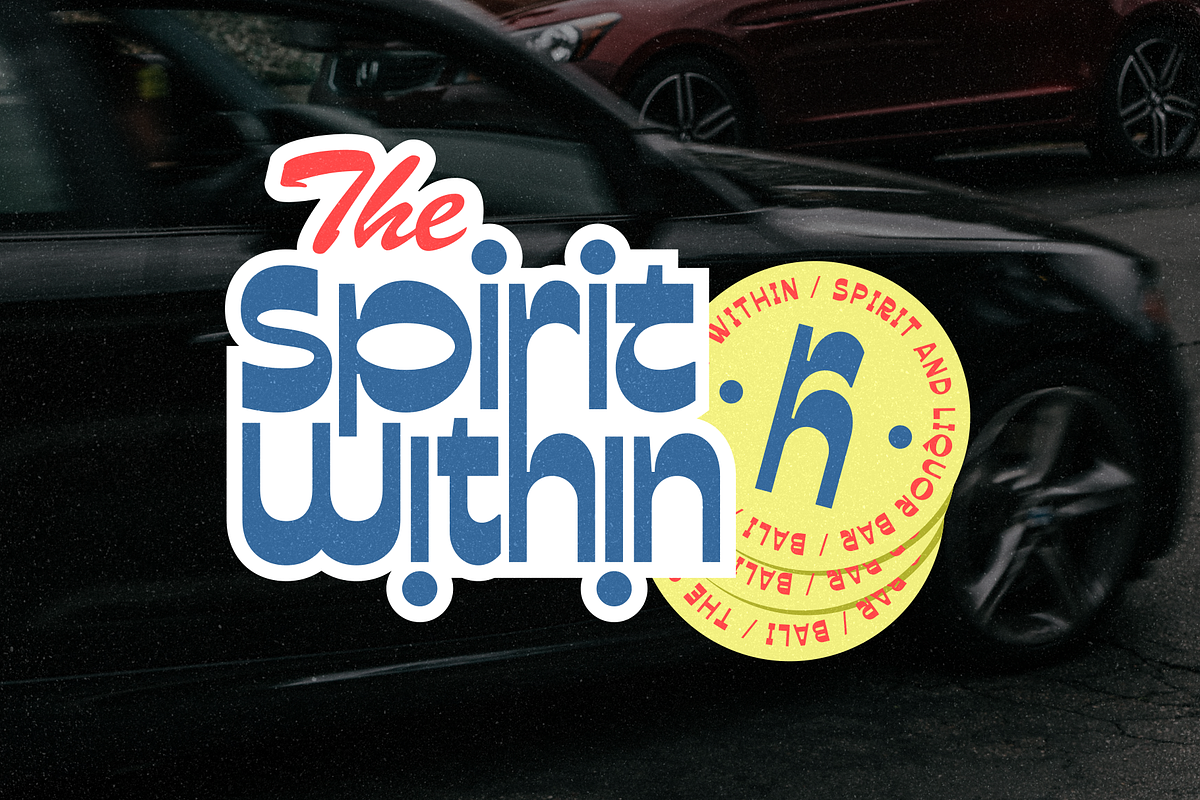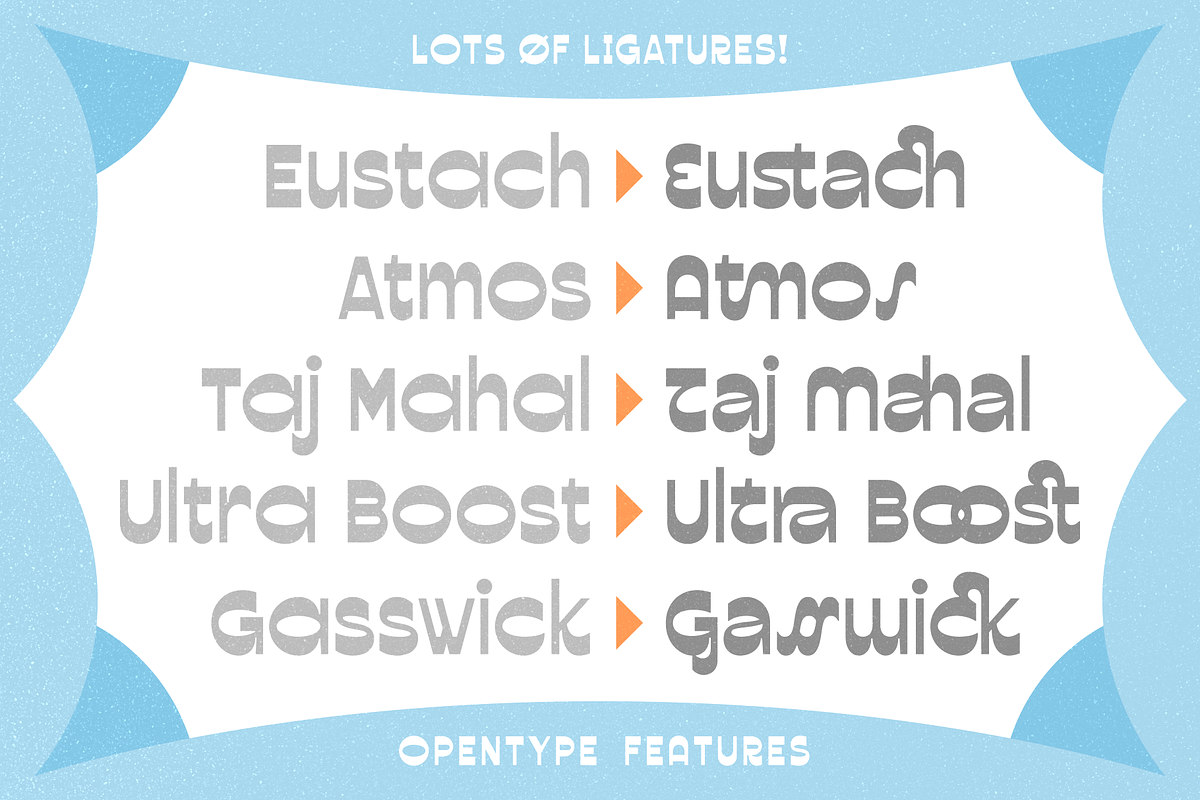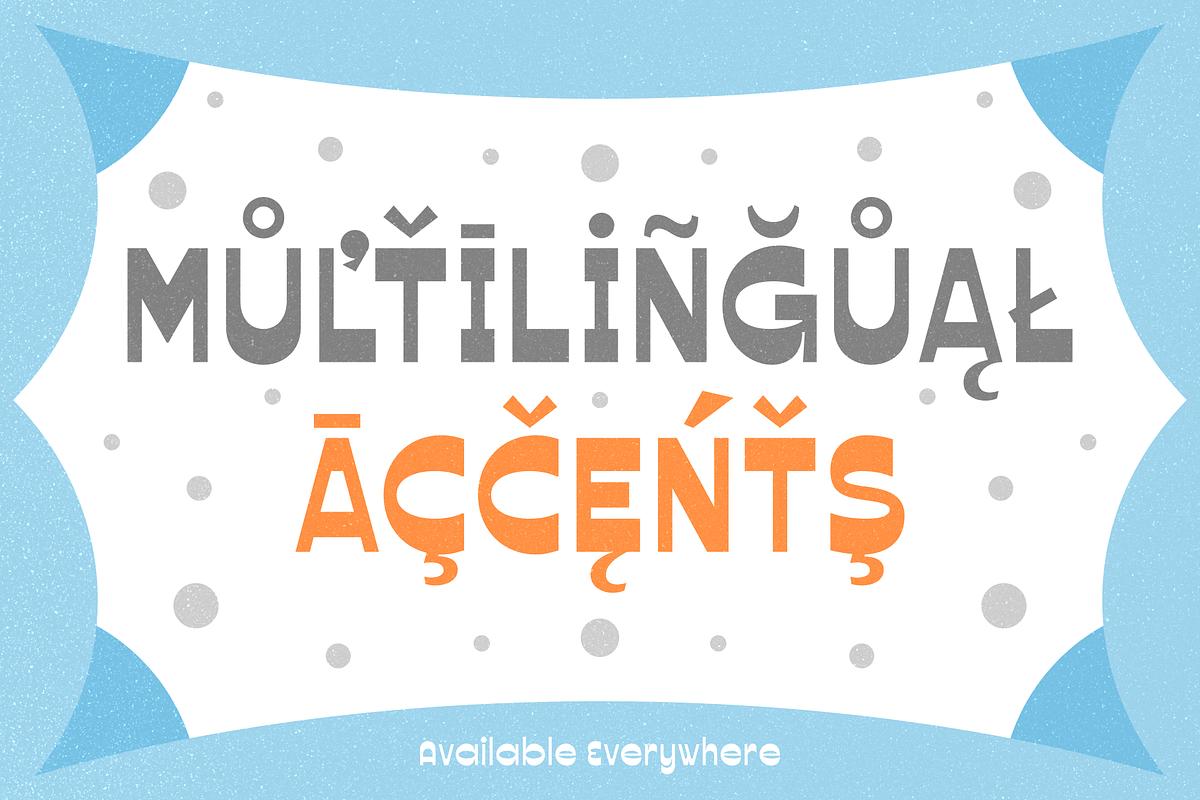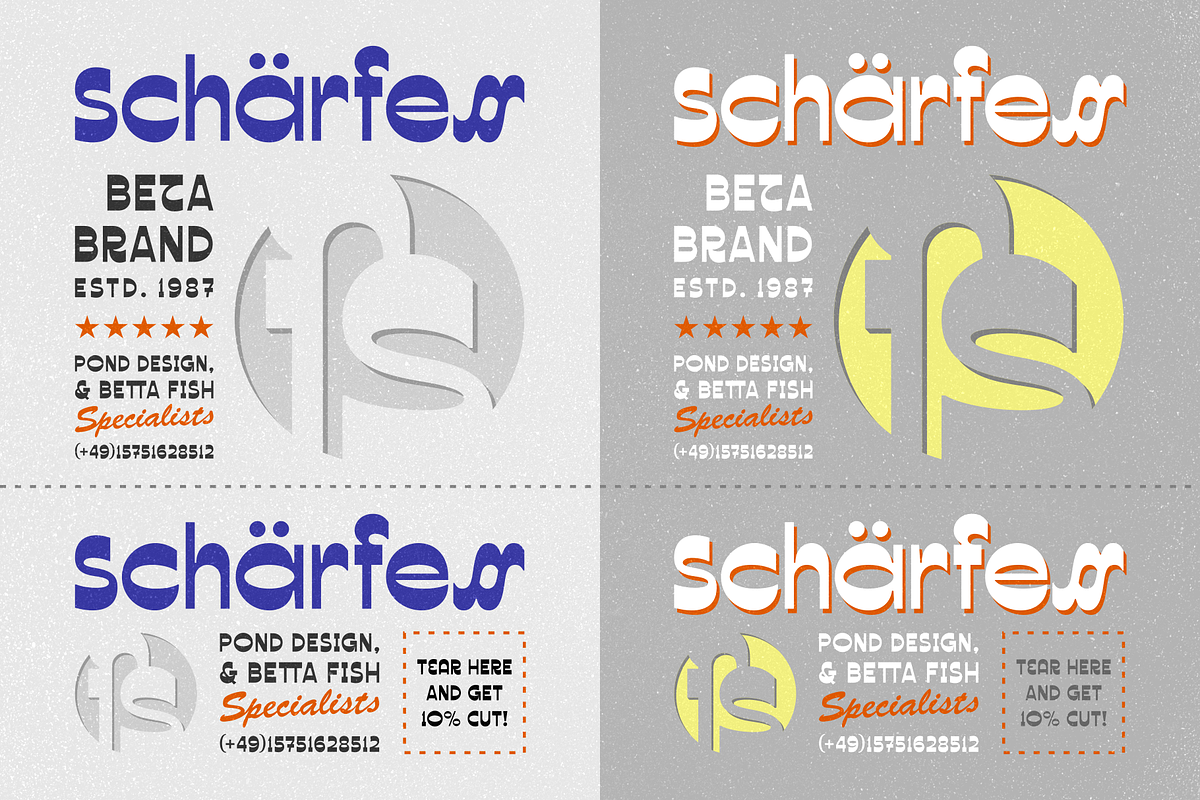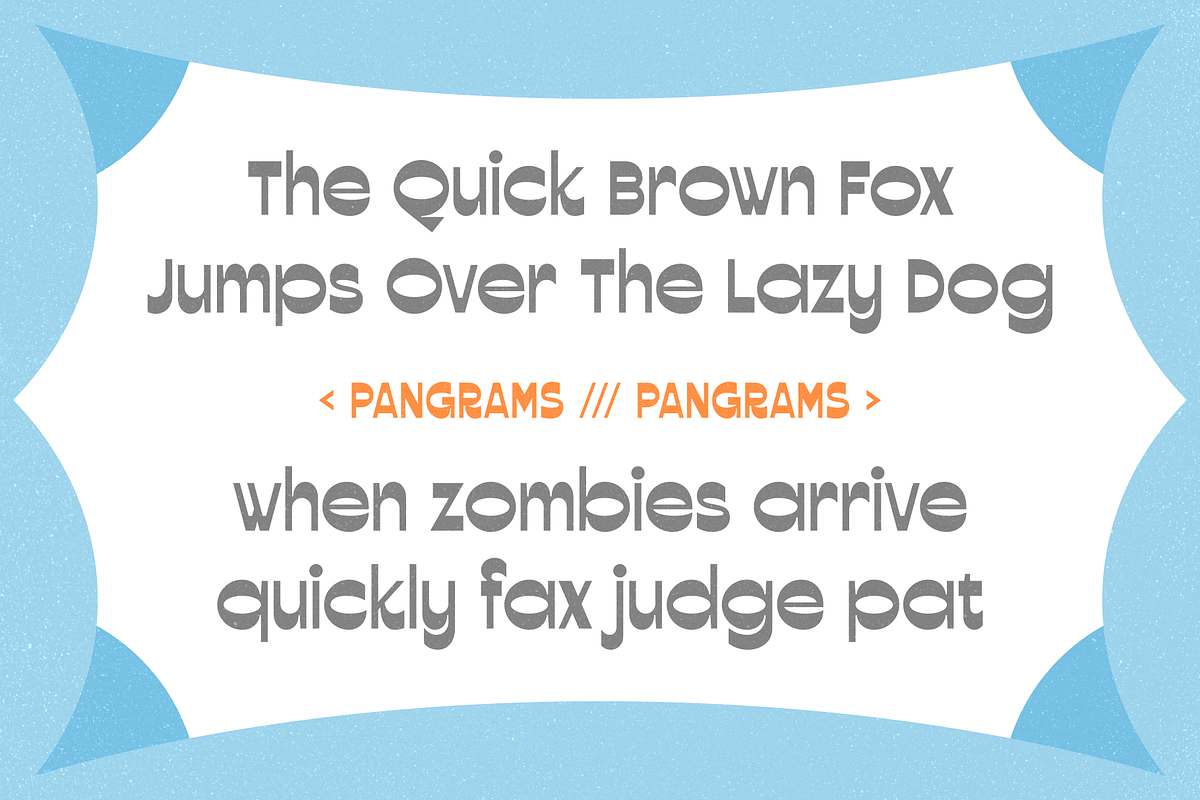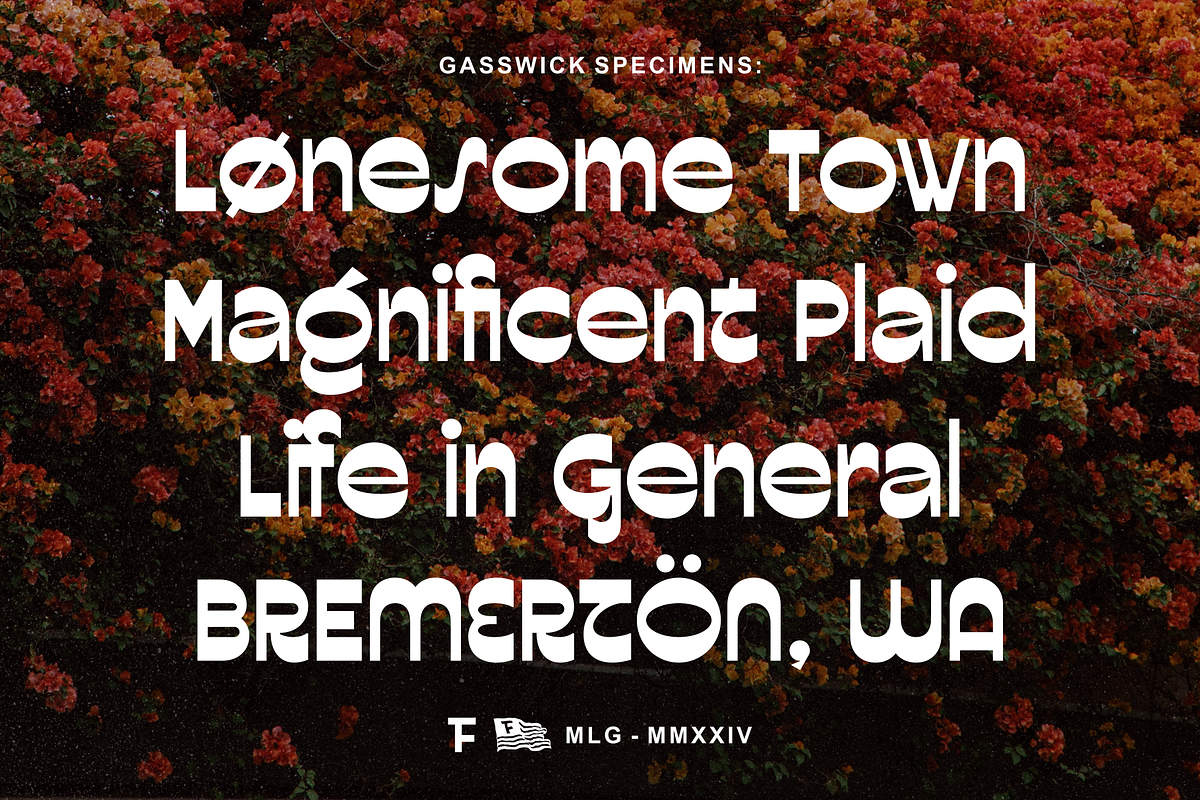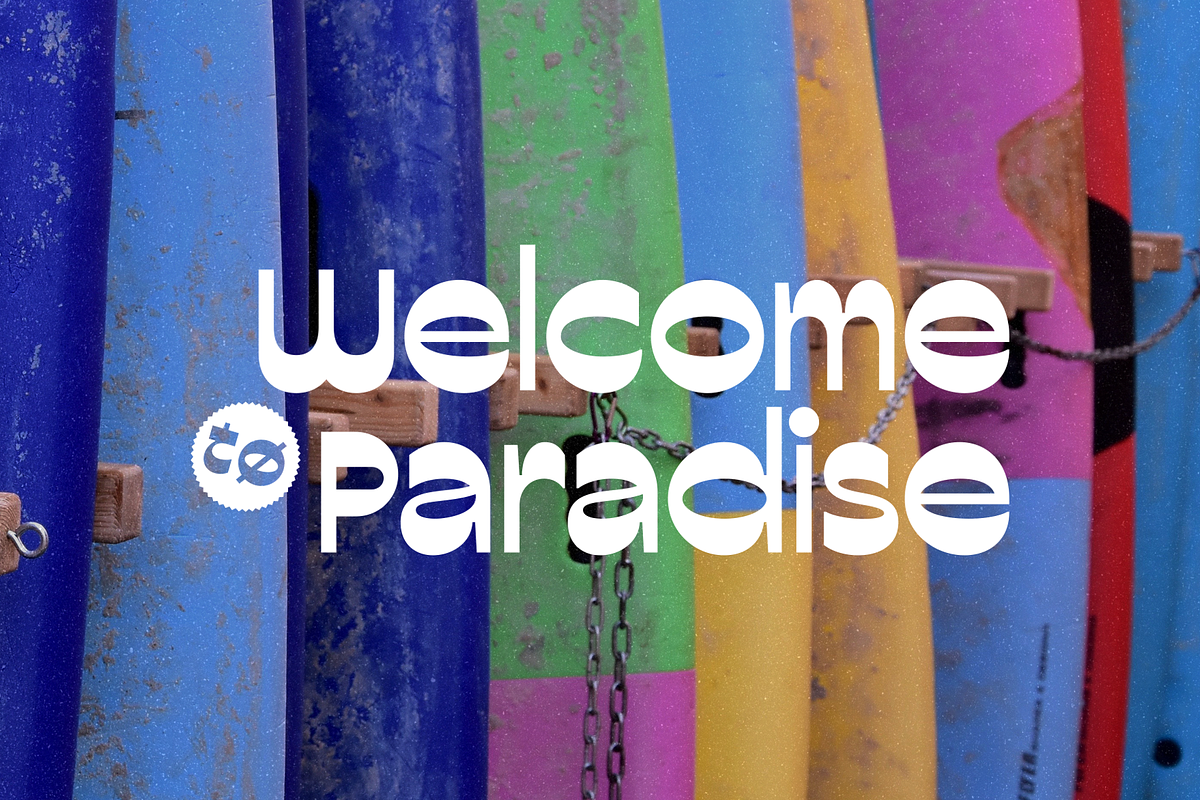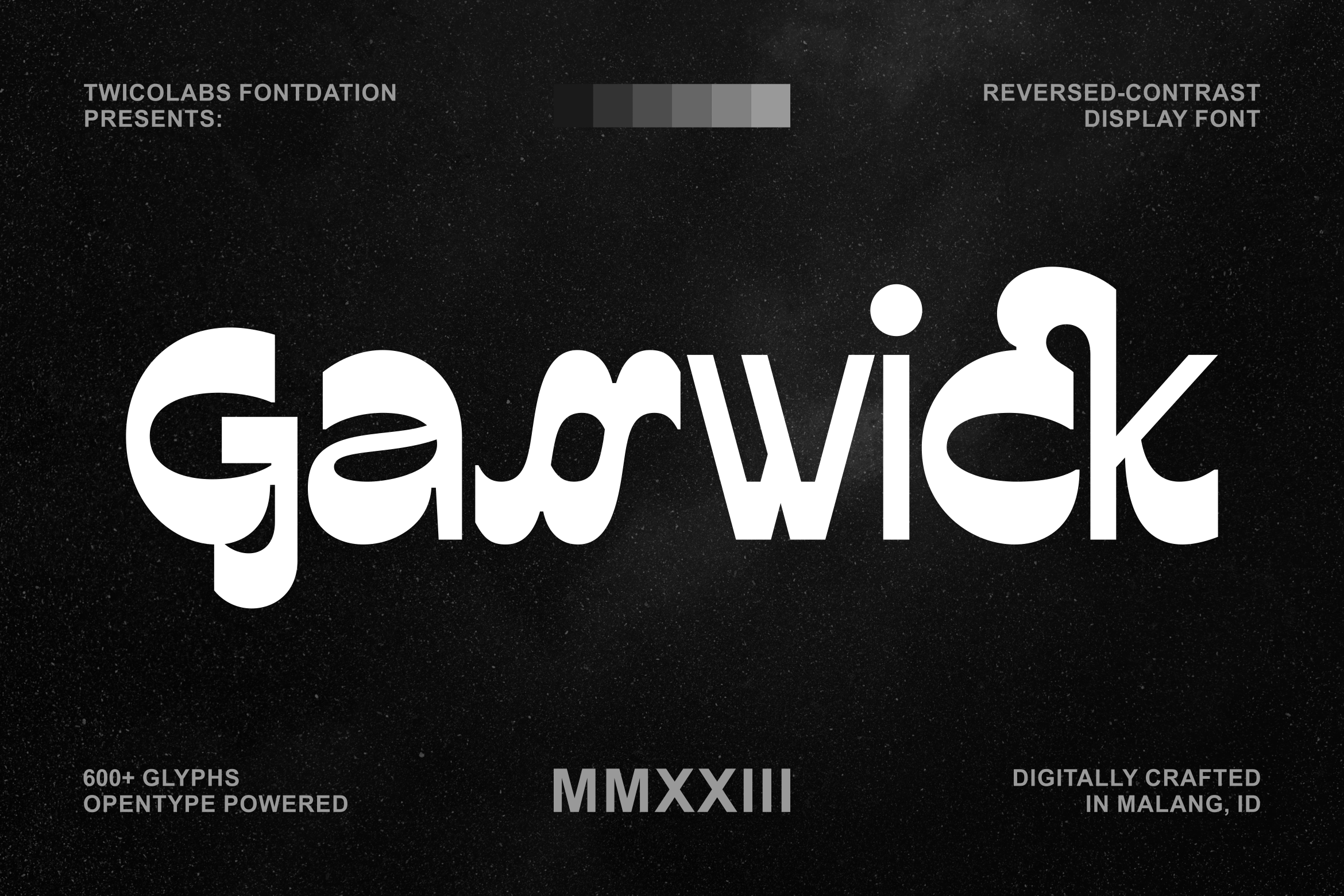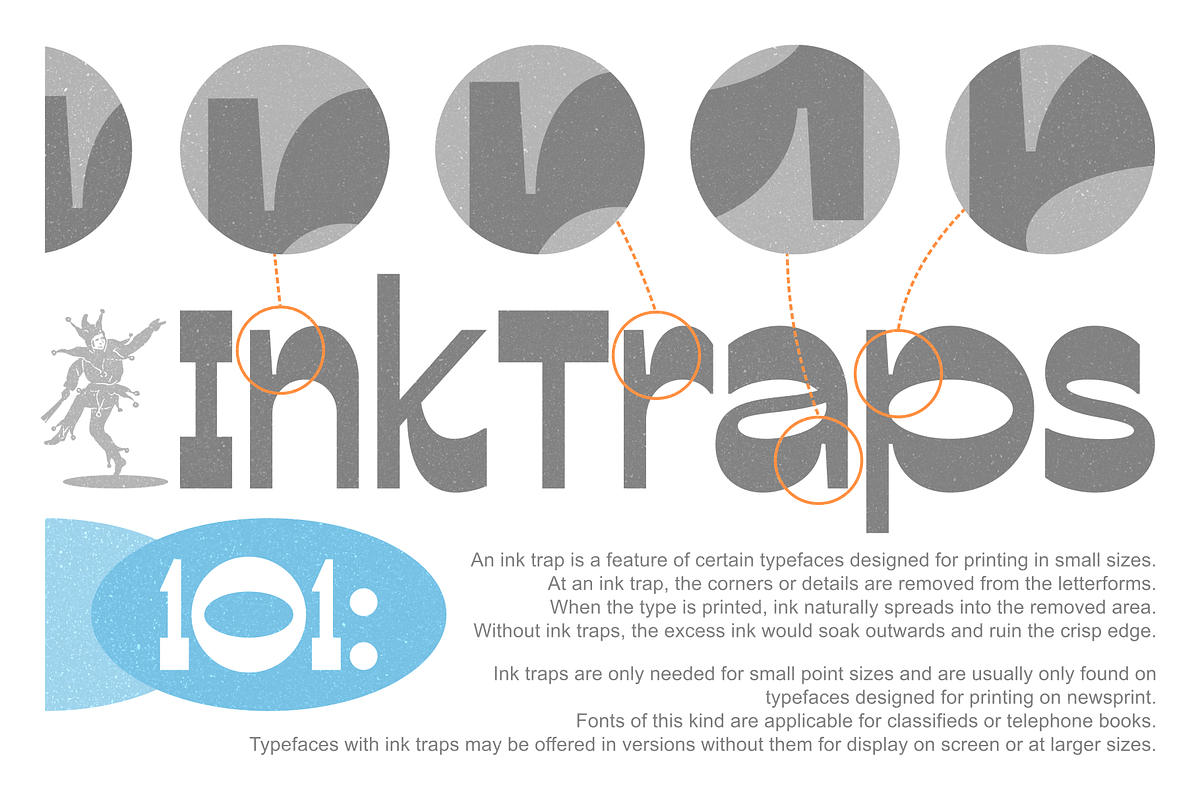
Gasswick | Groovy Sans Font
Introducing our latest release: Gasswick. A sans-serif that having the reversed-contrast personality. Suits best for logo, quote design, headline, etc. Consists of 600+ characters (Multilingual and OpenType featured glyphys included), this font is a must have for all you designers!